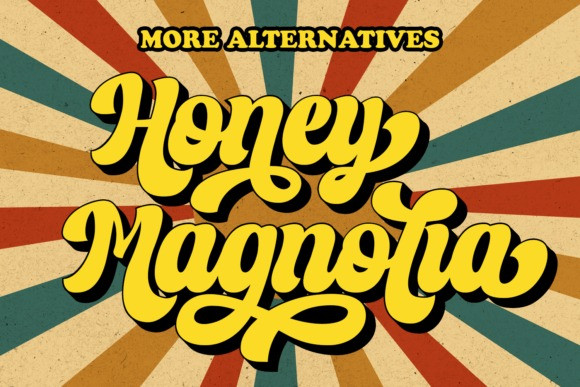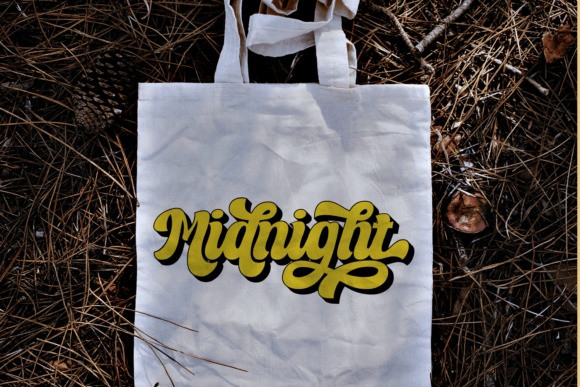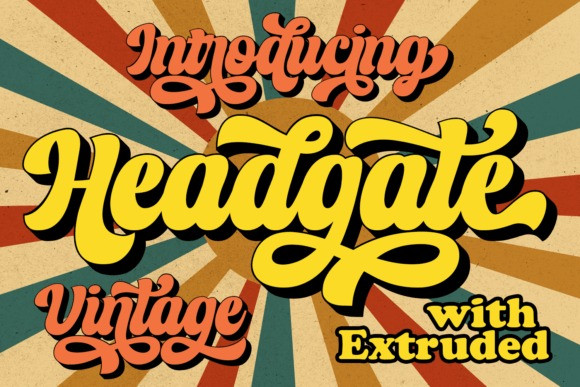
Headgate Script Font
Headgate Script Font is a vintage-inspired font that exudes timeless charm. With its bold script and alternative shadow feature, it adds a touch of nostalgia to any design. Perfect for logos, branding, and headlines, this font commands attention with its confident strokes and flowing curves. The shadow alternative option provides depth and dimension, elevating the visual appeal. Headgate effortlessly blends vintage style with a contemporary twist, making it an ideal choice for those seeking a classic and captivating aesthetic.